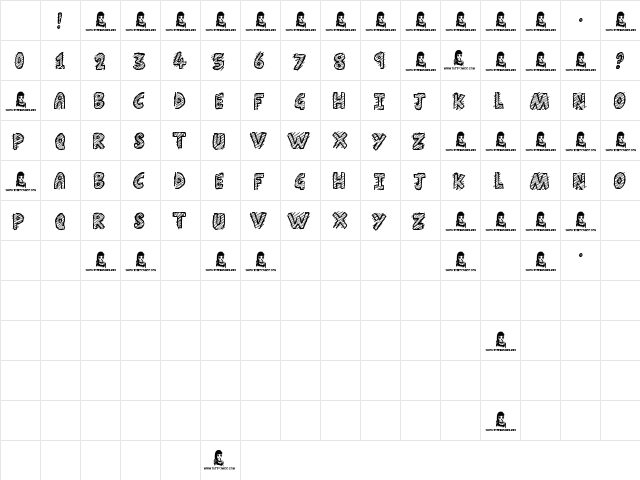
Complete Schools Out!!! Regular glyph index. Displaying only characters natively supported by Schools Out!!! Regular font.
Schools Out!!! is a composed and adaptable typeface that performs quietly and consistently across a wide range of design contexts.
Who designed the Schools Out!!! Regular font?